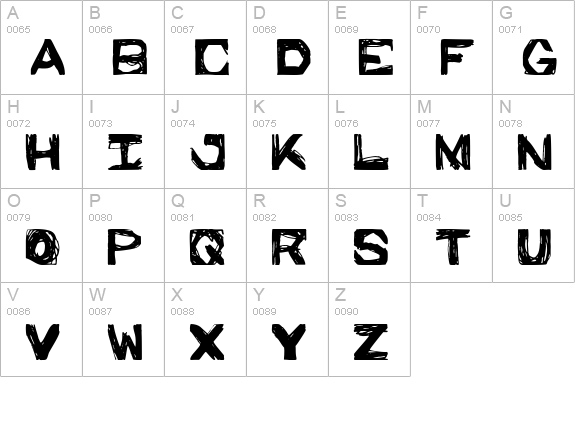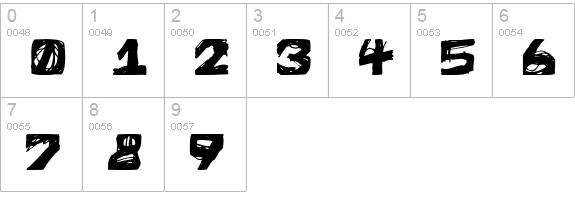
Prison Walls Font Details
Prison Walls font is a bold and commanding typeface that exudes strength and authority. With its rugged and gritty appearance, this font is perfect for projects that require a tough and impactful design. The sharp edges and solid lines of the letters give the impression of impenetrable walls, making a bold statement in any text. What sets Prison Walls font apart is that it is not only visually striking, but also versatile and easy to read. Its bold style ensures that your message will be noticed and remembered. Whether you are creating posters, logos, or headlines, this font will add a touch of rugged sophistication to your designs. Best of all, Prison Walls font is completely free to download at FontsMarket.com. This means you can add this powerful font to your collection without any cost, making it a valuable asset for any designer or creative professional. Don't miss out on the opportunity to enhance your projects with the bold and impactful Prison Walls font - download it today and make a statement!